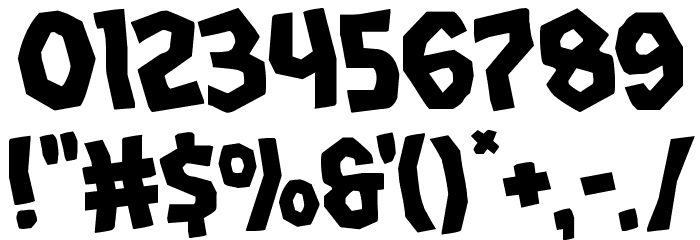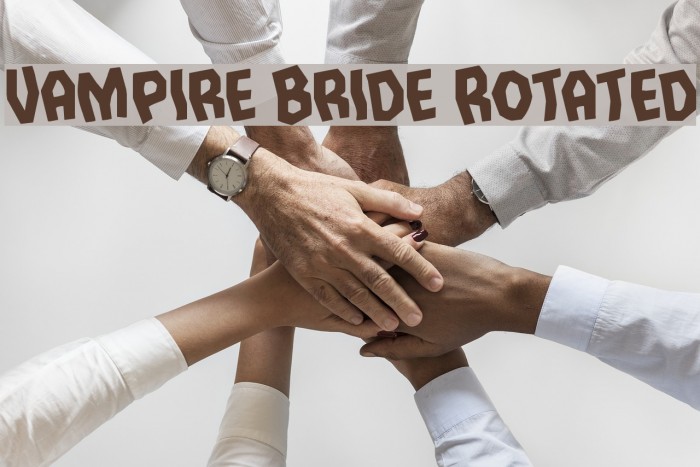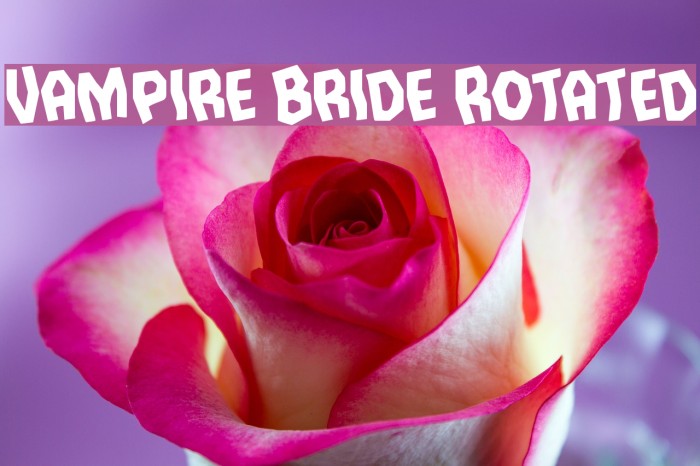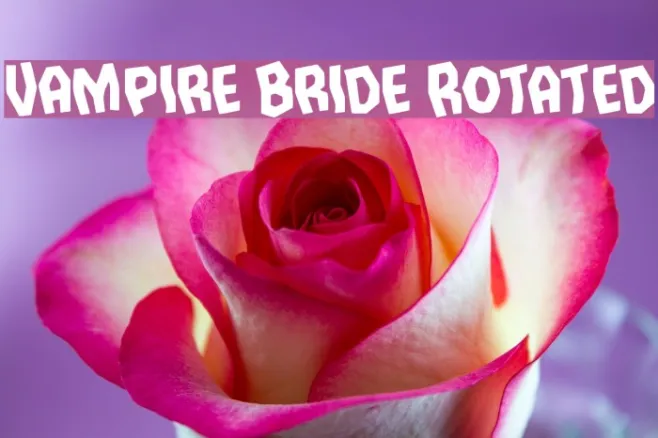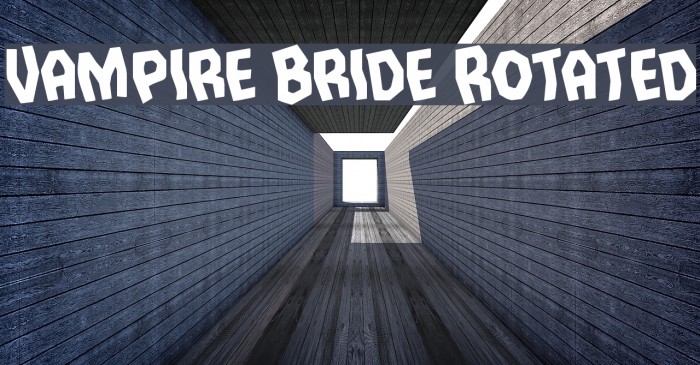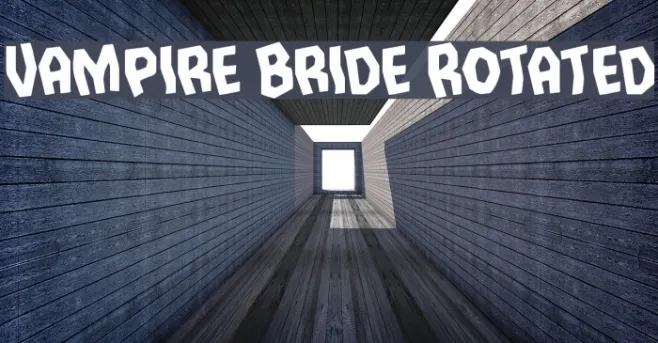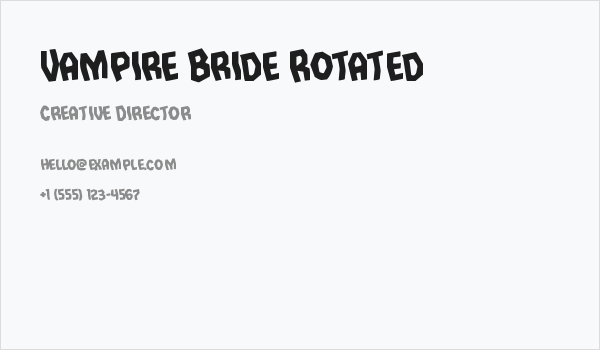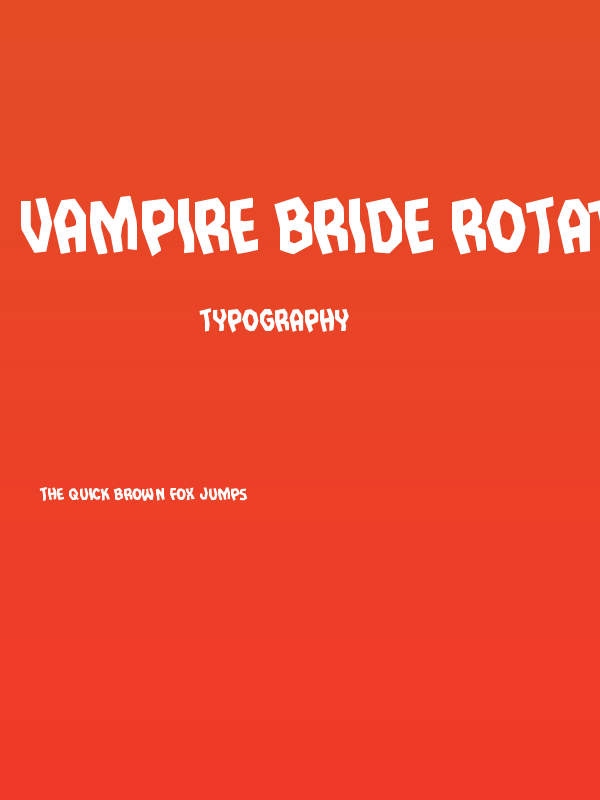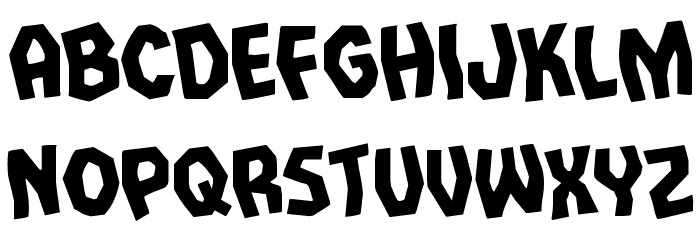
This font features a bold and jagged design, reminiscent of horror or Halloween themes. The characters have an irregular, hand-drawn appearance, with sharp angles and uneven lines that give them a dynamic and edgy look. The uppercase letters are particularly striking, with exaggerated forms that create a sense of movement and energy. The numbers and special characters maintain this style, ensuring consistency across the entire set. This font is ideal for projects that require a dramatic and eye-catching typeface, such as posters, book covers, or themed event invitations.
| Use Case | Headlines, Posters, Themed Events |
| Proposed Projects | Ideal for Halloween-themed designs, horror movie posters, spooky event invitations, and edgy graphic novels. |